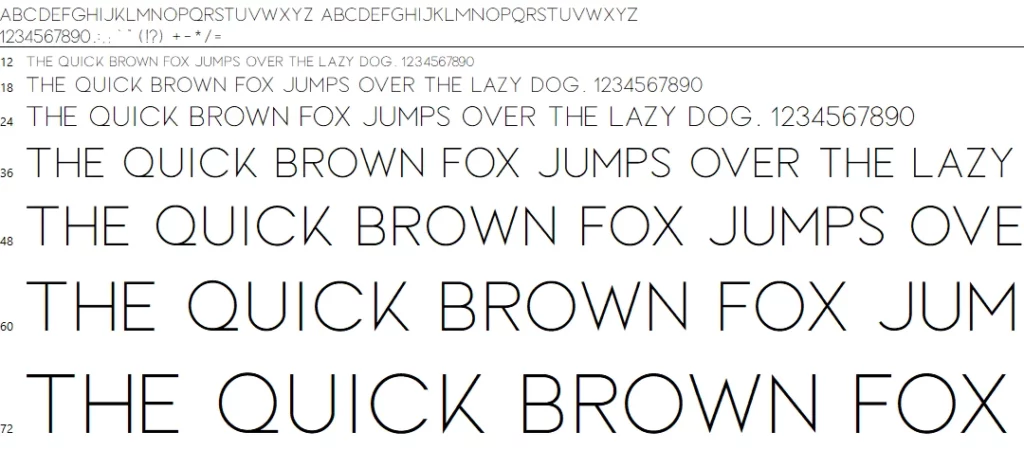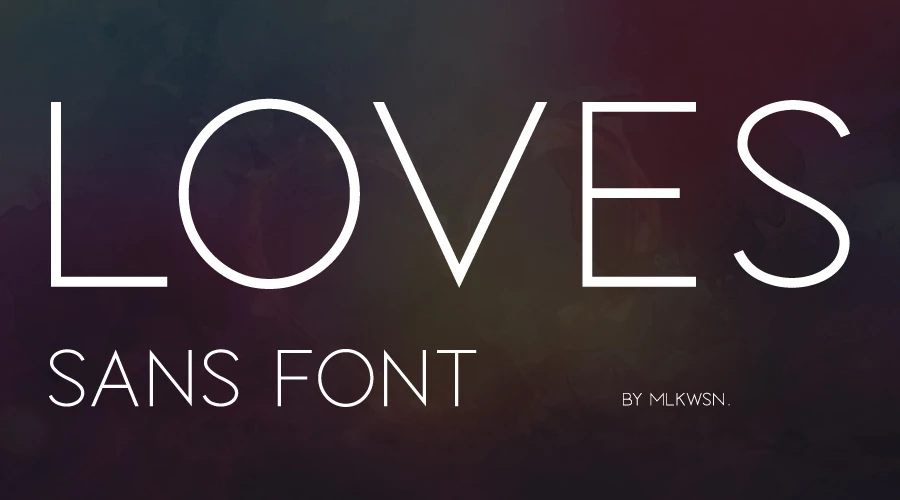
LOVES Sans Font is a classy sans-serif typeface designed by MLKWSN. It is a very elegant and attractive font. With 9 weights, symbols punctuation, and unique alternative, LOVES Sans is very easy to read. This font pairs well with modern serif, script, and handwritten fonts or stand strongly on its own as a heading or editorial font.
- Official work: Loves Sans is perfect for official documents and printing. You can easily use it in your official documents and printing purposes.
- On Design: Loves Sans is good for combining your design work with a clear line and a circle with several different weights. You can use it for posters, magazines, fashion design, or outstanding packaging and also as a title on a blog or magazine page.
- Logo: This font is made for logo design. People like this type of elegant font for logos.